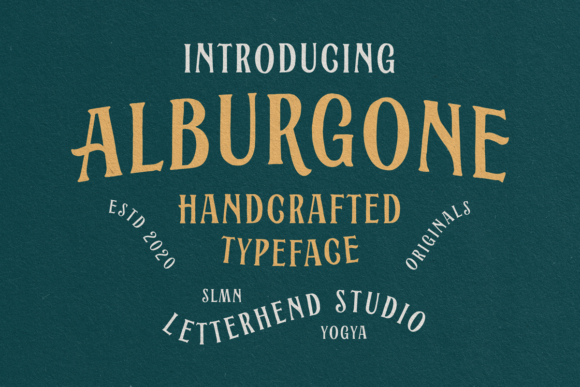
Introducing Alburgone Font: A Playfully Nostalgic Display Font
Are you looking for a font that can add a touch of vintage charm to your design projects? Look no further than Alburgone Font! This display font is designed to evoke a sense of nostalgia and playfulness, making it perfect for designers and crafters who want to add a unique and eye-catching element to their work.
The Vintage Aesthetic of Alburgone Font
Alburgone Font is a masterful blend of classic and modern design elements. Its vintage aesthetic is reminiscent of old-fashioned signage, posters, and advertisements from the early 20th century. The font’s unique character set and carefully crafted letterforms are designed to evoke a sense of nostalgia and timelessness, making it perfect for projects that require a touch of old-school charm.
What Makes Alburgone Font So Special?
So, what sets Alburgone Font apart from other display fonts on the market? Here are just a few reasons why designers and crafters are falling in love with this font:
- Playfully Nostalgic: Alburgone Font is designed to be playful and fun, with a hint of nostalgia that will transport your audience back in time.
- Vintage Aesthetic: The font’s vintage aesthetic is perfect for designers who want to add a touch of old-school charm to their work.
- Highly Versatile: Alburgone Font can be used for a wide range of design projects, from posters and advertisements to packaging and branding.
- Easily Readable: Despite its ornate and decorative nature, Alburgone Font is surprisingly easy to read, making it perfect for headlines, titles, and short paragraphs of text.
How to Use Alburgone Font in Your Design Projects
Alburgone Font is a highly versatile display font that can be used in a wide range of design projects. Here are just a few ideas to get you started:
- Posters and Advertisements: Use Alburgone Font to create eye-catching posters and advertisements that will grab your audience’s attention.
- Branding and Packaging: Add a touch of vintage charm to your brand’s packaging and marketing materials with Alburgone Font.
- Signage and Wayfinding: Use Alburgone Font to create unique and eye-catching signage and wayfinding systems.
- Digital Media: Alburgone Font can also be used in digital media, such as social media graphics, video titles, and website headers.
Tips and Tricks for Getting the Most Out of Alburgone Font
Here are a few tips and tricks for getting the most out of Alburgone Font:
- Use it Sparingly: Alburgone Font is a display font, so it’s best to use it sparingly to add emphasis and visual interest to your design.
- Pair it with a Simple Font: Pair Alburgone Font with a simple, easy-to-read font to create visual contrast and hierarchy in your design.
- Experiment with Colors and Textures: Alburgone Font looks great in a variety of colors and textures, so don’t be afraid to experiment and find the perfect combination for your design.
Alburgone Font is a unique and eye-catching display font that can add a touch of vintage charm to any design project. Its playfully nostalgic aesthetic and highly versatile design make it perfect for designers and crafters who want to create something truly special. Whether you’re working on a poster, advertisement, or branding project, Alburgone Font is sure to deliver an incredible vintage aesthetic that will set your design apart from the rest.